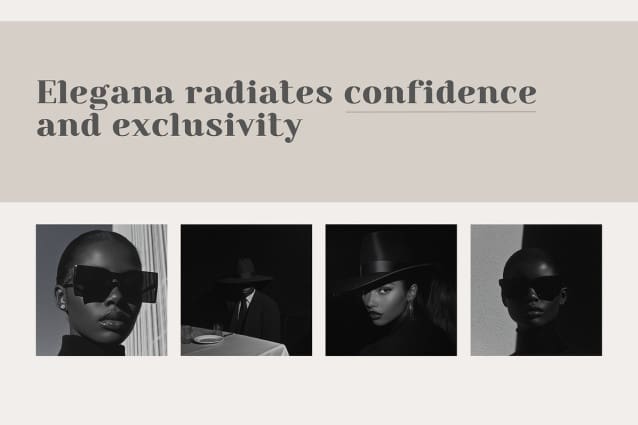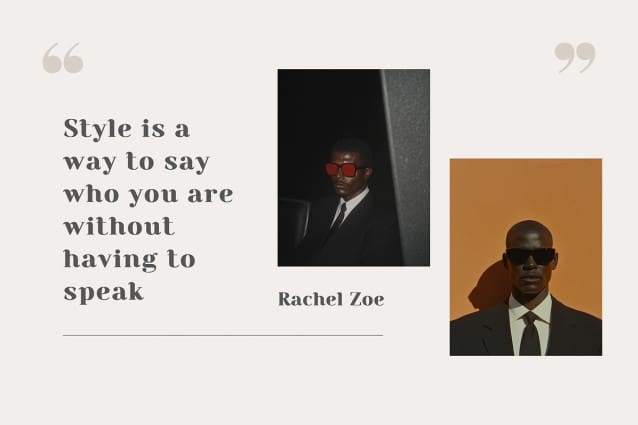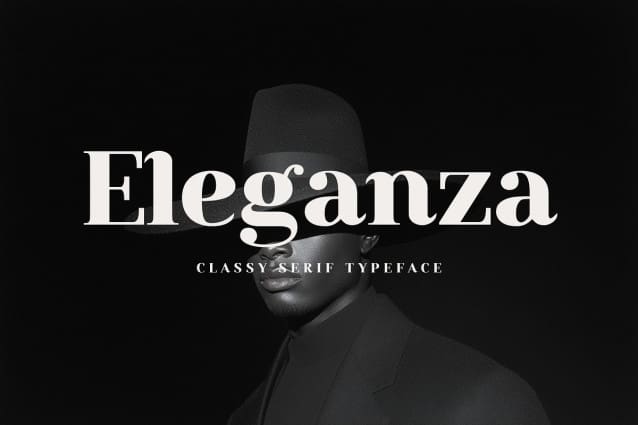
Eleganza Font
Eleganza Font, a refined serif typeface that exudes sophistication, luxury, and effortless style. Designed for those who appreciate the finer things in life, Elegana seamlessly blends modern refinement with timeless grace, making it the perfect choice for high-end branding, fashion editorials, and upscale packaging.
With its sleek, well-balanced letterforms and exquisite details, Elegana radiates confidence and exclusivity. Whether gracing the pages of a luxury magazine, adorning a designer label, or elevating a fashion campaign, this typeface ensures your designs command attention with an air of prestige.
Versatile yet distinctive, modern yet classic—Eleganza Font is the ultimate statement of elegance.